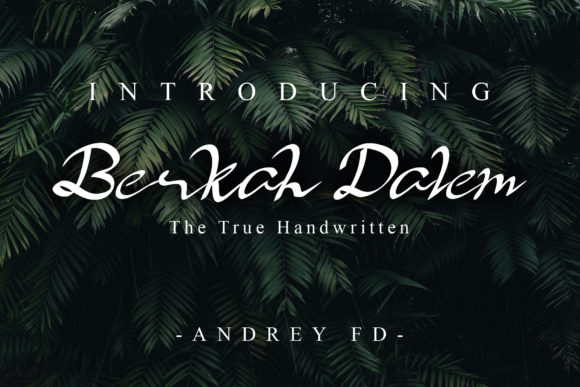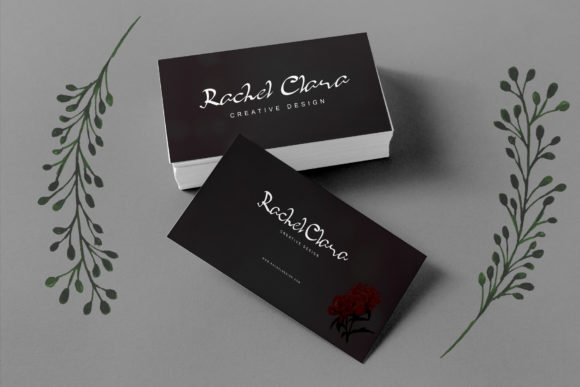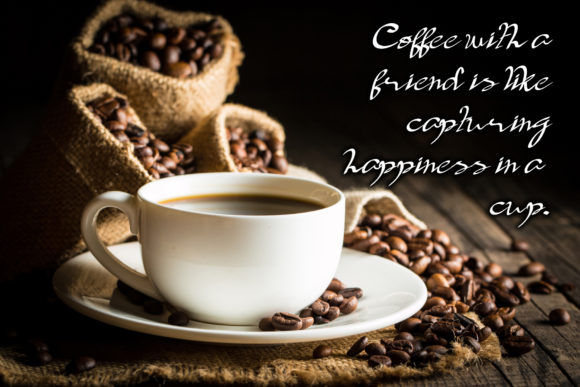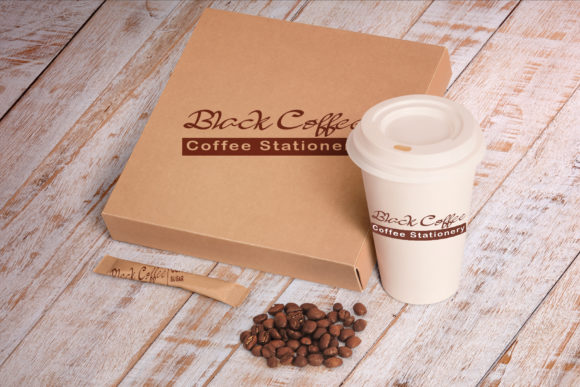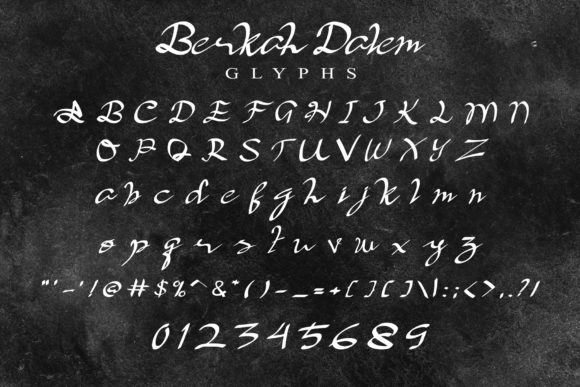
Berkah Dalem Font
About Berkah Dalem Font
Berkah Dalem is an unique and charming font. This versatile handwritten font can be used in a wide variety of applications from design project to logos, labels and more.